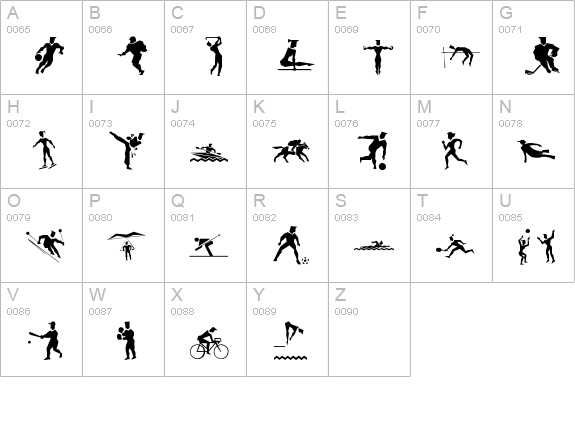
lpsports1 Font Details
LPsports1 font is a dynamic and energetic typeface perfect for sports-related designs. Its bold and modern style exudes a sense of strength and determination, making it ideal for posters, logos, and branding materials. The sleek lines and sharp edges of LPsports1 font convey a sense of speed and agility, capturing the essence of athleticism. Best of all, LPsports1 font is completely free to download at FontsMarket.com, allowing you to unleash your creativity without any cost. Whether you're designing for a professional sports team, a fitness brand, or simply want to add some sporty flair to your projects, LPsports1 font is a versatile choice that will make your designs stand out. Download it today and elevate your creations with this exciting typeface.